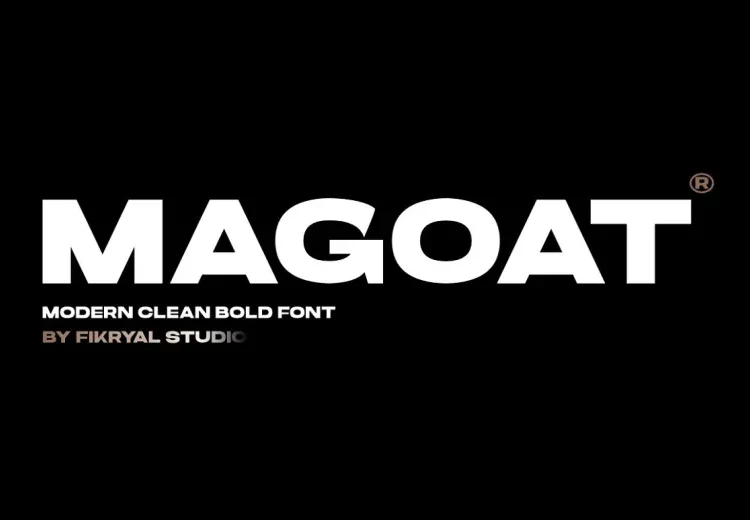
Magoat Font
Magoat Modern and Clean Bold font is the perfect choice for infusing modernity and boldness into your graphic design projects. Featuring a distinct All Caps style, Magoat commands attention with its clarity and confidence. Each character is meticulously designed to underscore the font’s modern and clean aesthetic, ensuring that your text stands out with both style and precision.
The unique design of Magoat makes it an ideal option for logos, titles, and any other design elements that require a strong and impactful presence. Despite its bold appearance, the font maintains excellent legibility, ensuring that your message is conveyed clearly and effectively. This balance of boldness and readability makes Magoat a versatile tool for various platforms and applications.
By incorporating Magoat into your projects, you add an innovative, contemporary, and professional touch while enhancing visual appeal. The font’s striking design elements provide an attractive and distinctive look, perfect for making a memorable impression in both digital and print media.